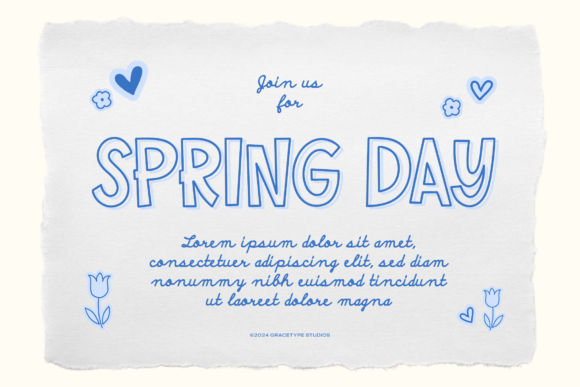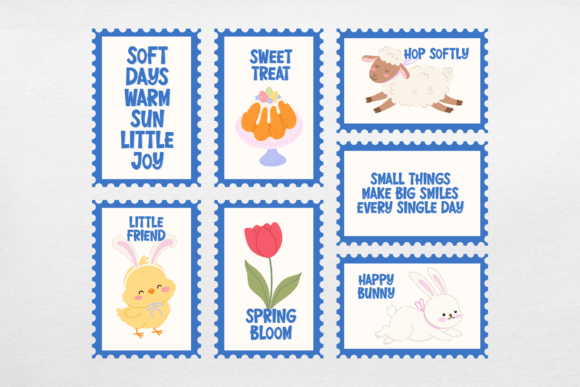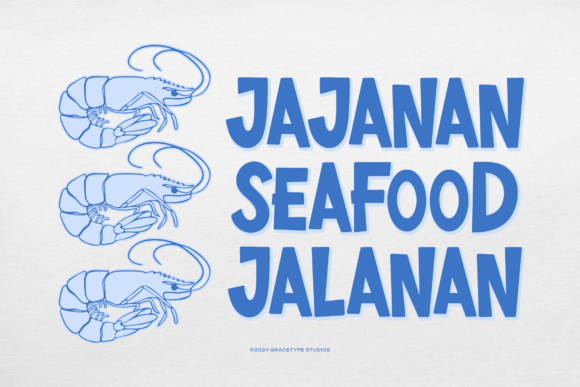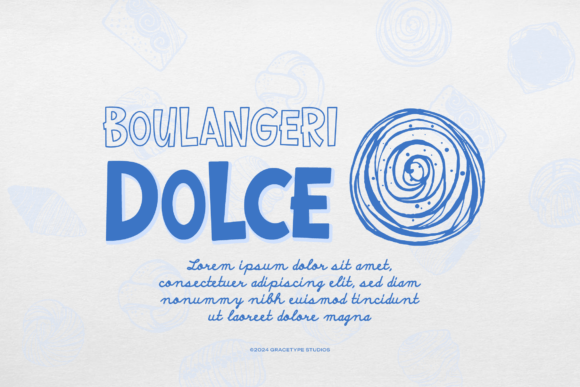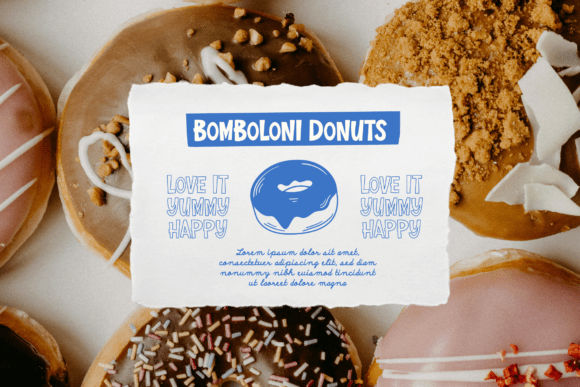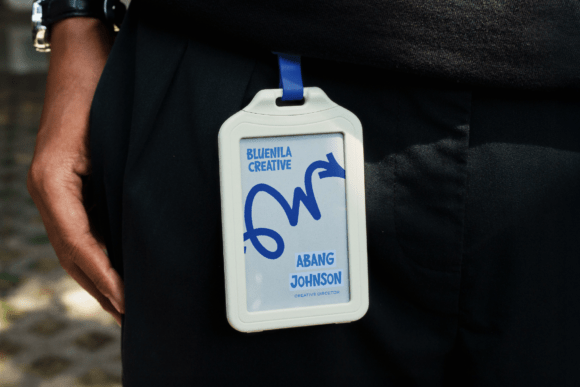
Bringing Joy and Whimsy to Your Designs with Beffalda Font
In the world of typography, few fonts manage to capture the essence of playfulness and handcrafted charm as effortlessly as Beffalda. This new, playful hand-drawn font is designed to infuse your designs with a sense of joy and approachability, making it an ideal choice for a wide range of creative projects. From children’s book titles to nursery decor, quirky branding, and casual social media graphics, Beffalda is the perfect addition to any designer’s toolkit.
The Unique Characteristics of Beffalda Font
Beffalda’s unique charm lies in its thick, organic strokes and slightly irregular, bouncy letterforms. These distinctive features give the font a friendly and approachable aesthetic that is hard to resist. Unlike more traditional, uniform fonts, Beffalda’s hand-drawn nature lends a sense of warmth and personality to your text, making it feel less like digital type and more like a warm, personal note.
Beffalda’s versatility makes it an exceptional choice for a variety of creative projects. Here are just a few ideas to get you started:
- Children’s Book Titles: Beffalda’s playful and whimsical nature makes it an ideal choice for children’s book titles. Its fun, bouncy letterforms are sure to capture the attention of young readers and add a touch of magic to your story.
- Nursery Decor: Add a touch of personality to nursery decor with Beffalda’s charming and handcrafted aesthetic. Use it to create adorable wall art, nursery rhymes, or even personalized baby blankets.
- Quirky Branding: Stand out from the crowd with Beffalda’s unique and playful style. This font is perfect for brands that want to convey a sense of friendliness and approachability.
- Casual Social Media Graphics: Add a personal touch to your social media graphics with Beffalda’s warm and inviting aesthetic. Use it to create engaging and shareable content that will resonate with your audience.
Why Choose Beffalda Font?
So why choose Beffalda font for your next design project? Here are just a few reasons:
- Unique and Playful Style: Beffalda’s hand-drawn nature and distinctive features make it a one-of-a-kind font that will add a touch of personality to your designs.
- Versatility: Beffalda is an incredibly versatile font that can be used for a wide range of creative projects, from children’s books to social media graphics.
- Easy to Read: Despite its playful nature, Beffalda is incredibly easy to read, making it perfect for both digital and print applications.
- Handcrafted Charm: Beffalda’s handcrafted aesthetic lends a sense of warmth and personality to your text, making it feel less like digital type and more like a warm, personal note.
In conclusion, Beffalda font is a unique and playful addition to any designer’s toolkit. Its handcrafted charm, thick organic strokes, and slightly irregular letterforms make it the perfect choice for a wide range of creative projects. Whether you’re designing children’s book titles, nursery decor, quirky branding, or casual social media graphics, Beffalda is sure to bring a sense of joy and whimsy to your designs. So why not give it a try and see the difference it can make?